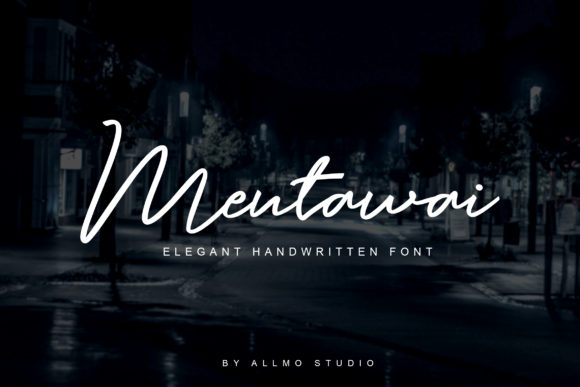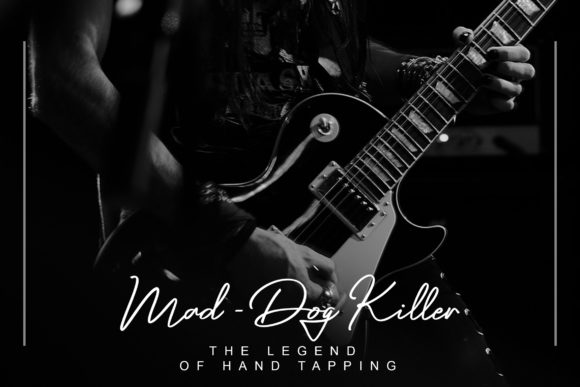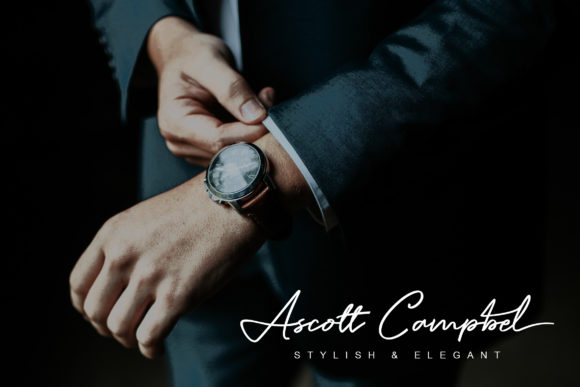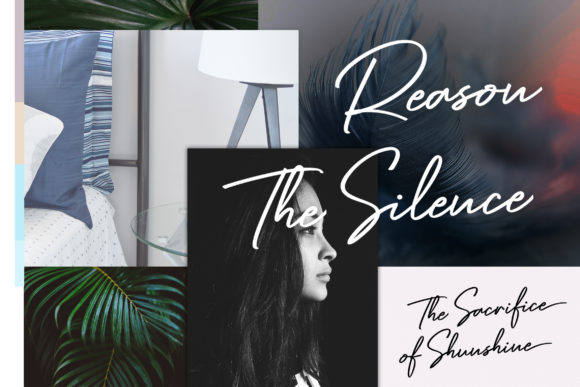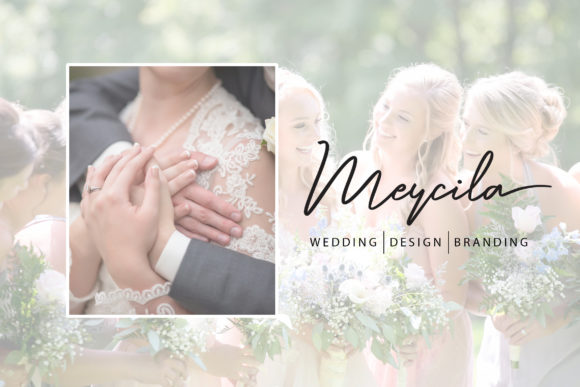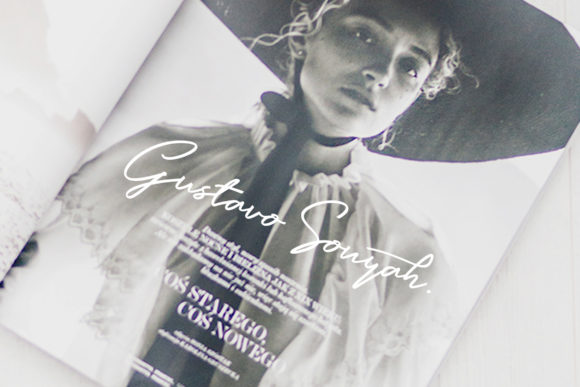
Mentawai Font
About Mentawai Font
The Mentawai is a stylish signature script that’s sleek and professional. Mix-n-match the upper and lowercase’s and give your designs that eye-grabbing aesthetic everyone wants.
It’s perfect for signatures, logos, prints, invites, and more!